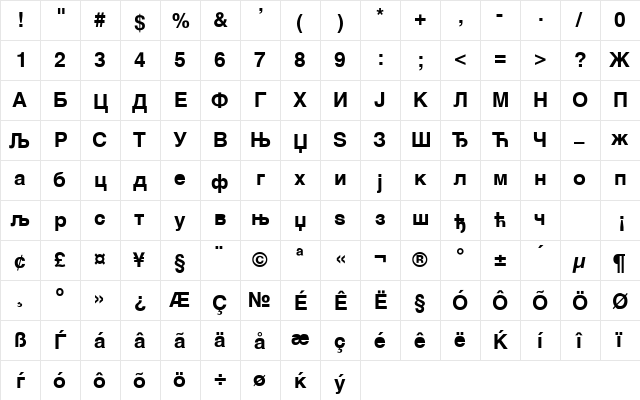
HelvCiril Bold
Design Context for HelvCiril Typeface
HelvCiril offers clean, dependable letterforms without strong stylistic allegiance, making it a practical choice for designers who need flexibility. The heavy weight commands attention and anchors typographic hierarchies.